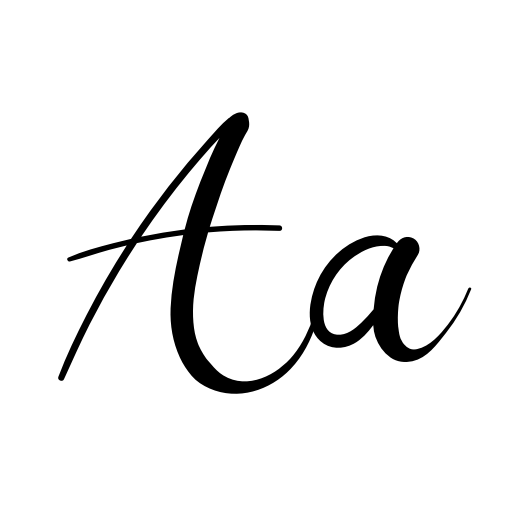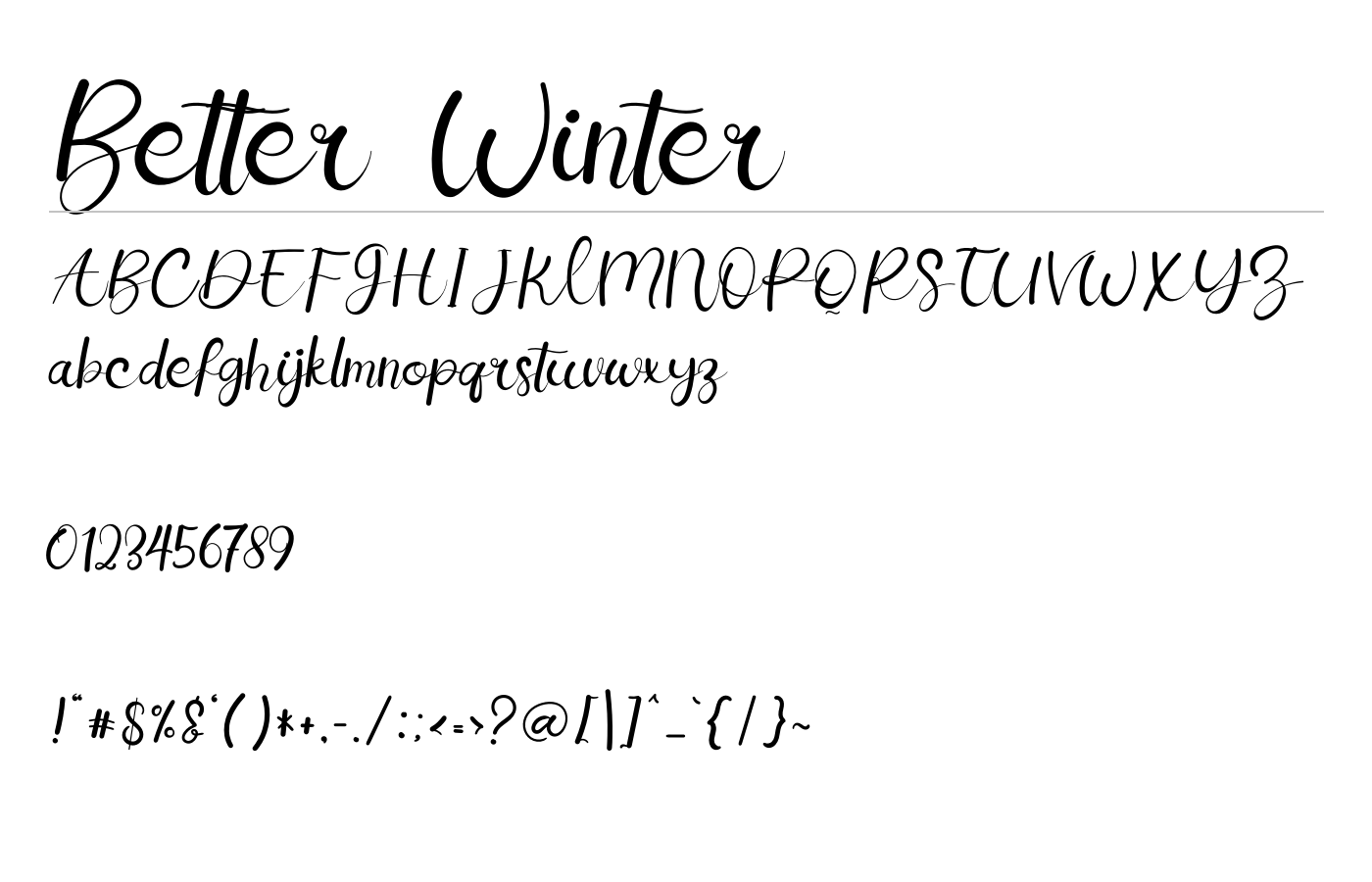
Better Winter is a playful, elegant script font featuring smooth, flowing strokes with a charming handwritten feel. Its moderate contrast and delicate curves make it perfect for adding a personal, friendly touch to invitations, branding, and creative designs where warmth and style are desired. This font shines in headings, logos, and packaging that call for a casual yet sophisticated look.
Better Winter Font